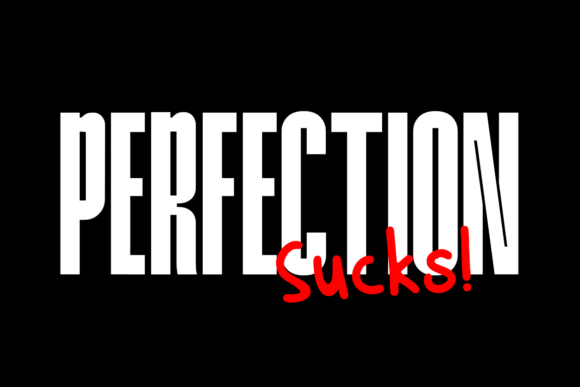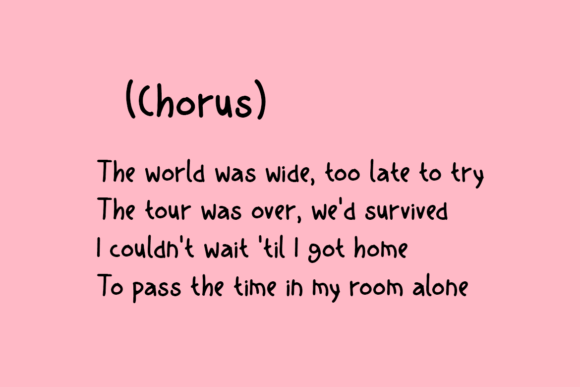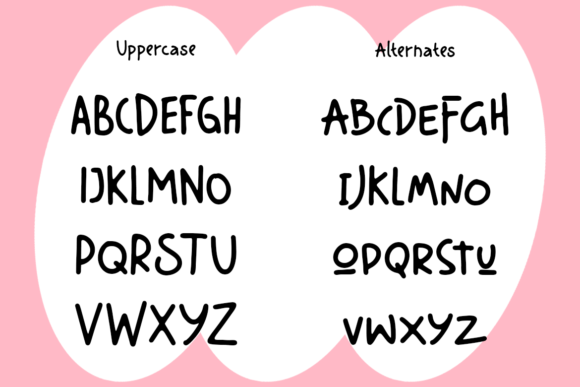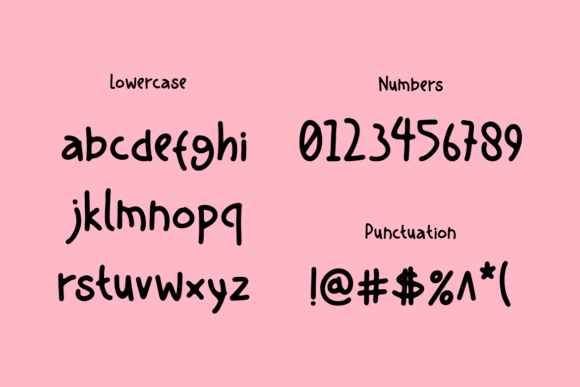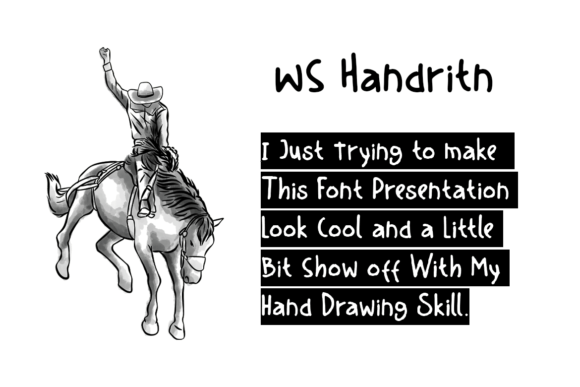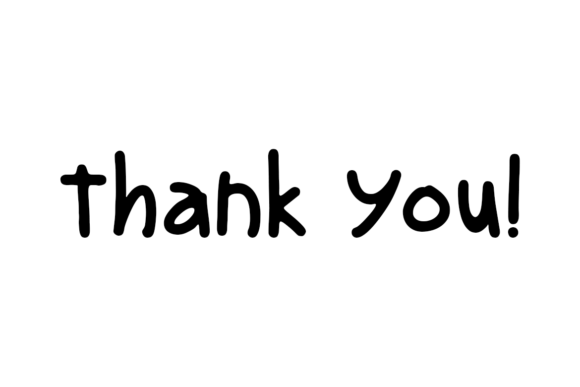
Introduction to Handritn Font Font
As a designer, there’s nothing quite like the thrill of bringing a creative project to life. You’ve spent hours pouring over ideas, refining your concept, and finally, it’s time to add the finishing touches. But, have you ever felt like your design is missing that special something – a personal touch that sets it apart from the rest? This is where the Handritn Font Font comes in, offering a unique and expressive handwritten font that’s sure to elevate your designs.
With its high-quality letterforms and full uppercase alternates, Handritn Font Font is a valuable resource for designers looking to add a human touch to their work. Whether you’re working on a free download or a paid project, this font is a must-have for anyone seeking to create something truly unique. From transparent backgrounds to intricate details, Handritn Font Font has everything you need to bring your creative vision to life.
So, what makes Handritn Font Font so special? In this article, we’ll delve into the world of this remarkable font, exploring its features, benefits, and how you can use it to take your designs to the next level.
Key Features of Handritn Font Font
- Unique, hand-drawn design: Handritn Font Font offers a distinctive, high-quality font that can add a personal touch to any creative project.
- Size: The font includes a range of sizes and styles, from small caps to large display fonts, making it suitable for various design applications.
- Perfect for creative projects: Handritn Font Font is ideal for designers, artists, and writers seeking a unique and high-quality font for their next project.
Honest Review: Handritn Font Font
As a designer, I’m always on the lookout for high-quality design resources to elevate my creative projects. I recently came across the Handritn Font Font, and I must say, it’s a great find.
- High-quality design with transparent background
- Perfect for creative projects, such as logo design, typography, and more
- Available in various styles and weights
Limitations: ⚠️ The only limitation I’ve found is that the font may not be suitable for all types of designs. For example, it may not be the best choice for formal or conservative projects.
Overall, I’m impressed with the Handritn Font Font. It’s a valuable addition to any designer’s toolkit, and I’m excited to see how it can be used in various creative projects.
Tips for Getting the Most Out of Handritn Font Font
For high-quality results, use the Handritn Font Font on a transparent background. This will allow you to easily layer the font over other design elements. Additionally, experiment with different font sizes and colors to add visual interest to your design.